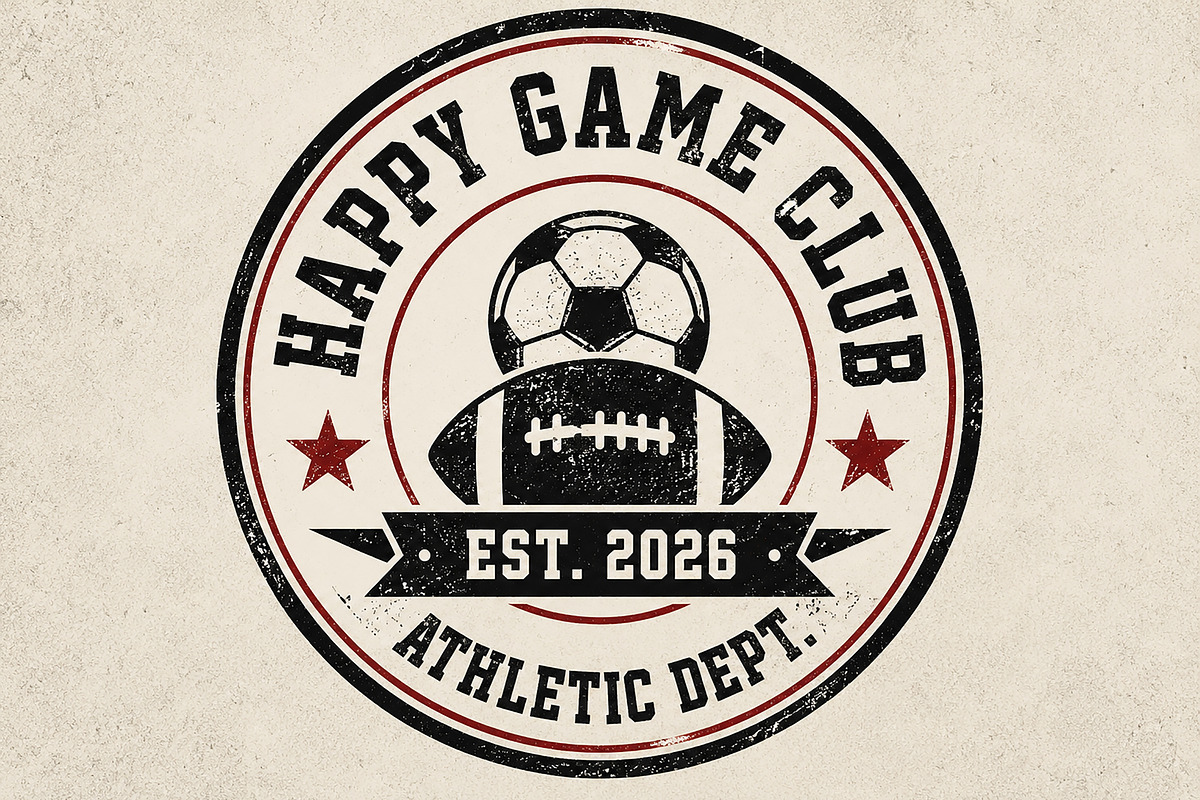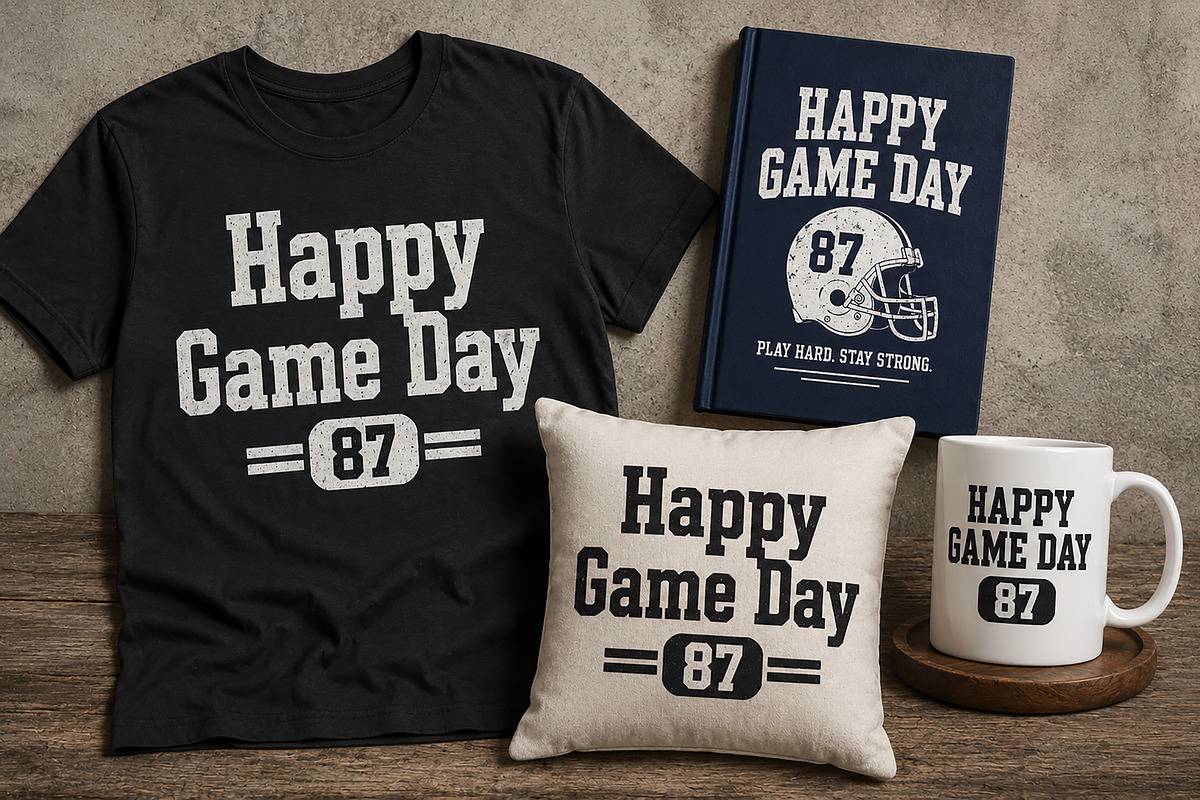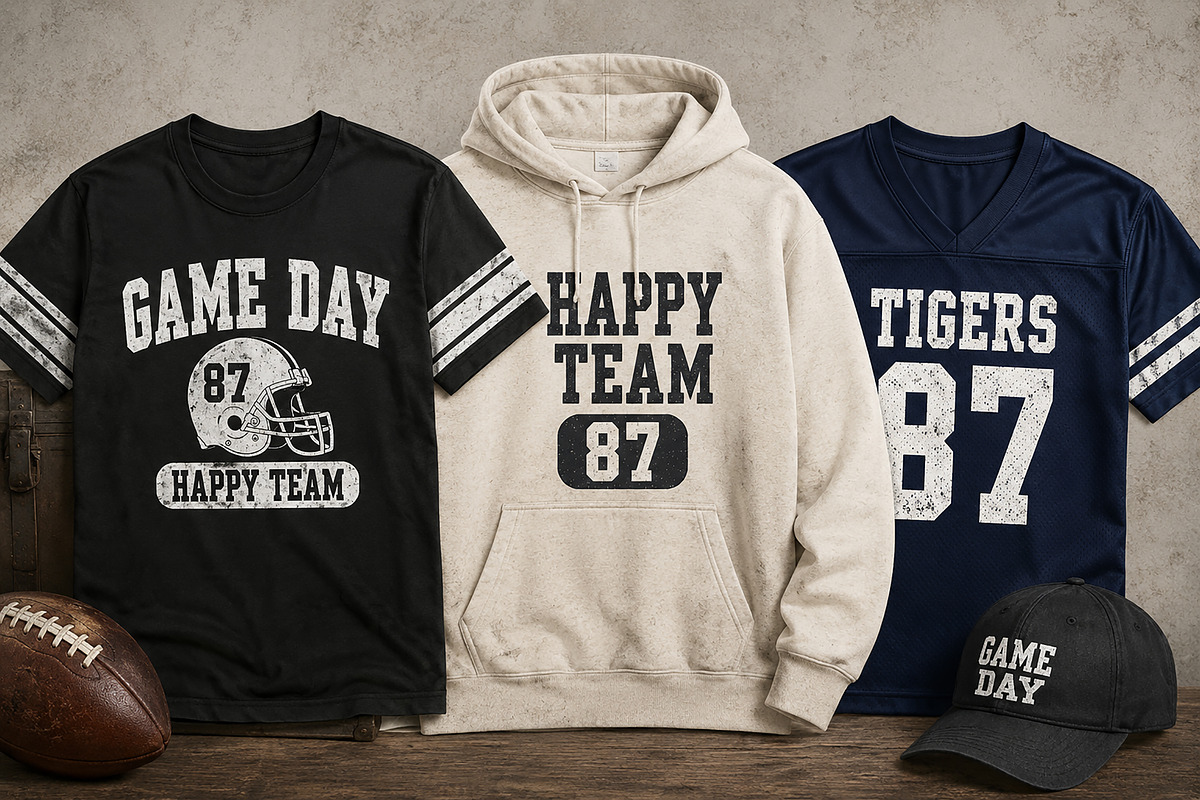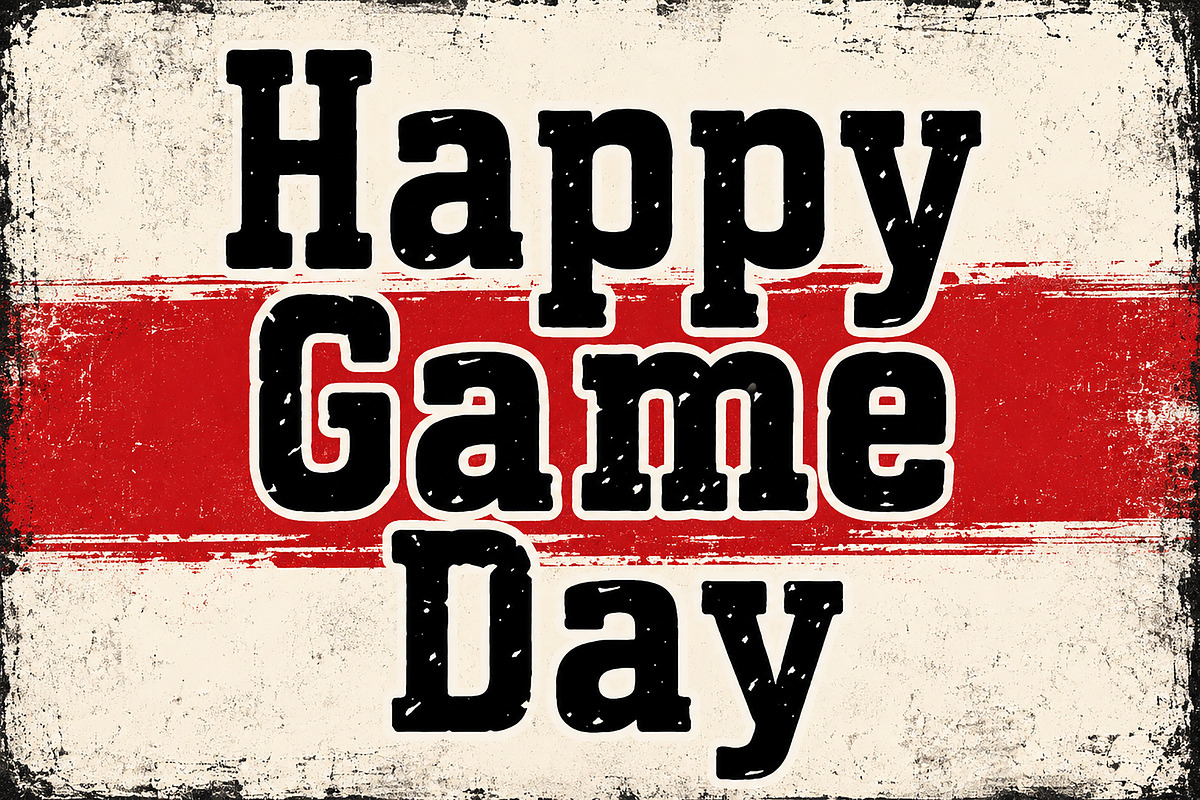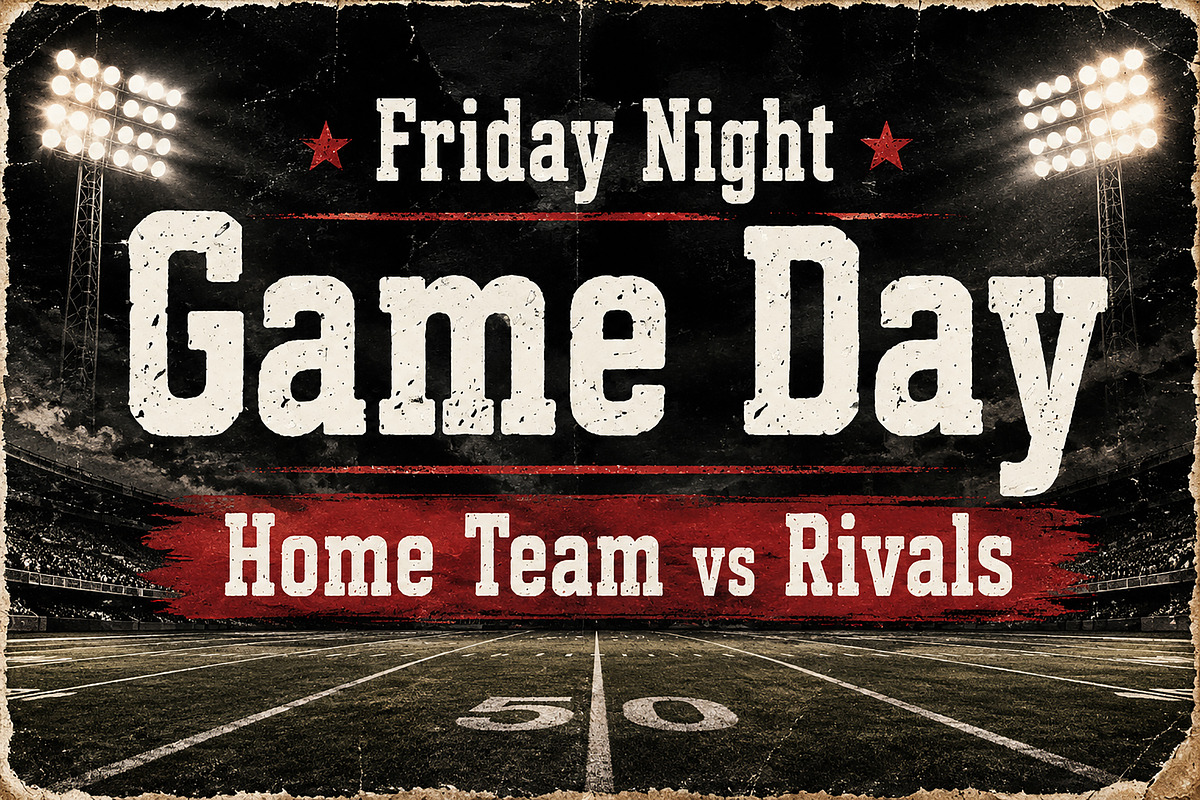
Happy Game Day
Happy Game Day – Vintage Sports Display Font
Happy Game Day is a bold vintage sports display font inspired by classic varsity lettering, retro athletic posters, and old-school game day graphics. Featuring a strong collegiate style with distressed texture details, this font delivers an authentic sporty and rugged look perfect for eye-catching designs.
Designed with powerful slab-style characters and a worn vintage feel, Happy Game Day works beautifully for sports branding, football posters, baseball graphics, team logos, apparel, merchandise, stickers, school events, and social media designs.
Whether you're creating retro sports t-shirts, athletic badges, stadium posters, or varsity-inspired branding, this font brings energetic game-day vibes to every project.
Sports Posters
Football & Baseball Graphics
Varsity Apparel
Team Logos
School Merchandise
Athletic Branding
T-shirt Designs
Sports Event Flyers
Stickers & Badges
Retro Merchandise
Vintage Packaging
Bold Sports Display Style
Vintage Varsity Lettering
Distressed Grunge Texture
Uppercase Characters
Strong Athletic Personality